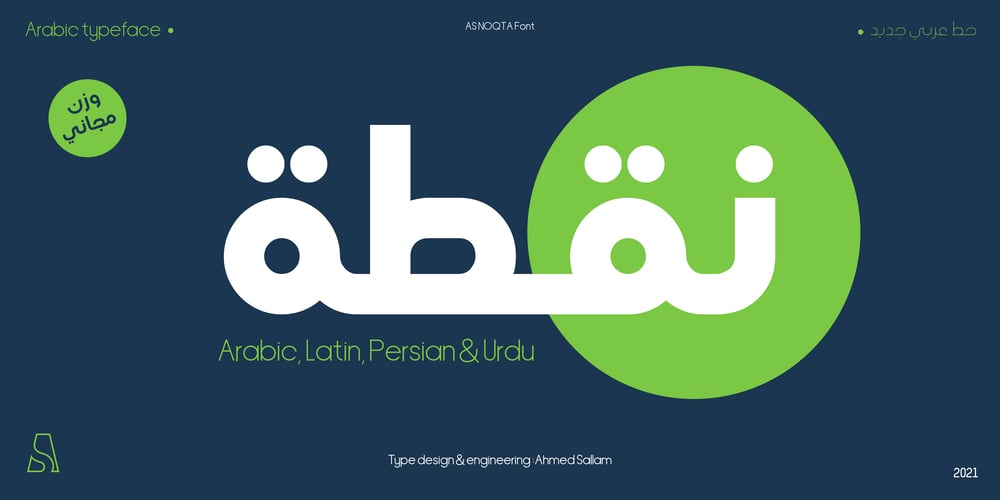
AS Noqta
AS Noqta font
AS Noqta Font Family was designed by Ahmed Sallam and published by Sallam Type. AS Noqta contains 7 styles and family package options. AS Noqta Font is a modern Arabic typeface designed by Ahmed Salllam. The design is inspired by the circle style contemporary tastes with wide open counters and short ascenders and descenders that minimize the hight. And has a high – contrast between the vertical and the horizontal to line up in harmony with Latin. and ligatures set. This makes it suitable for branding, editorial, packaging and advertising.AS Noqta Font consists of 7-weight versions from thin to Heavy.